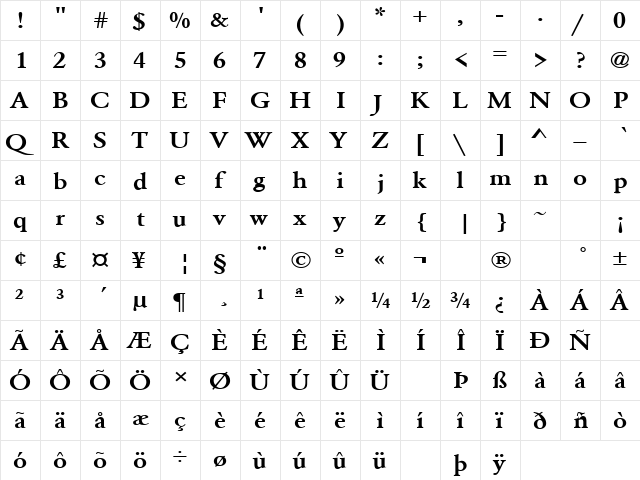
Ummama 3 Regular
Design Context for Ummama 3 Typeface
Ummama 3 offers clean, dependable letterforms without strong stylistic allegiance, making it a practical choice for designers who need flexibility.